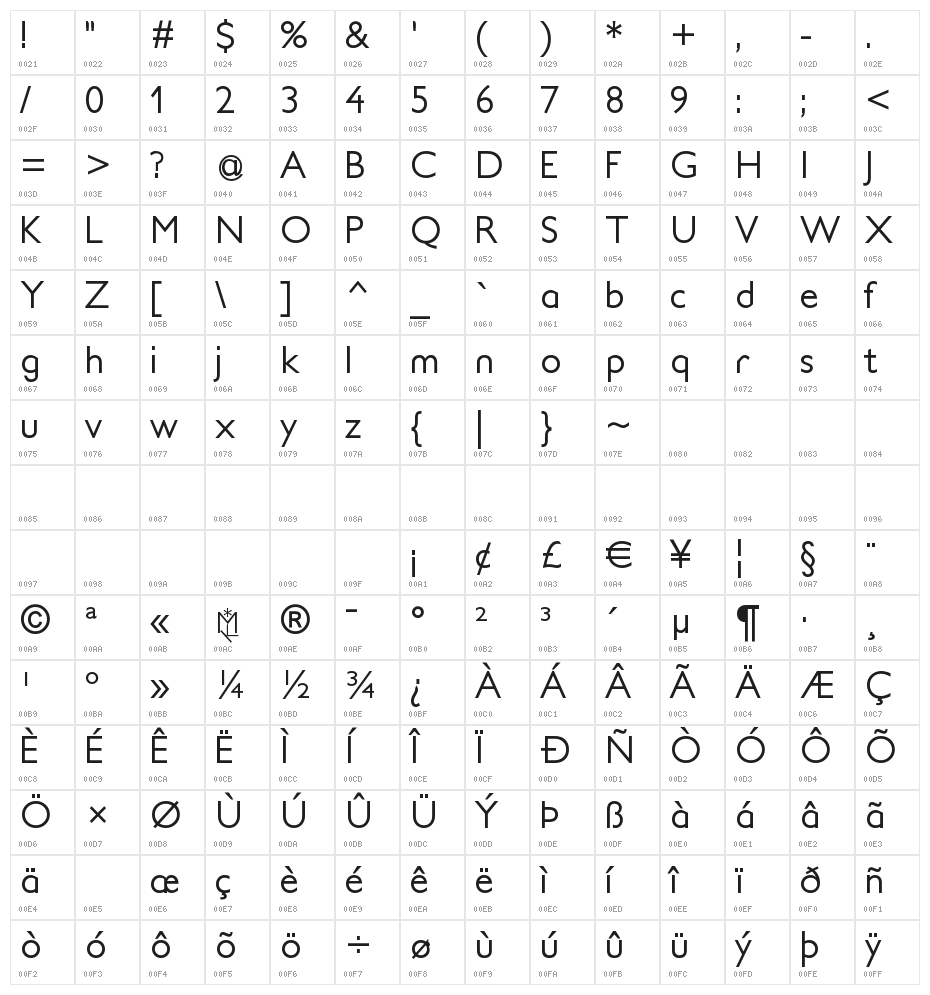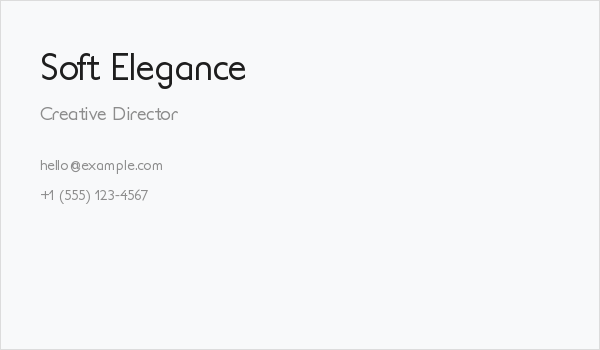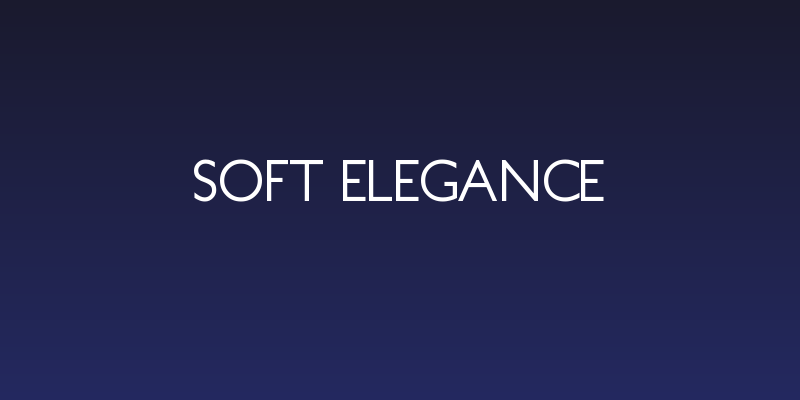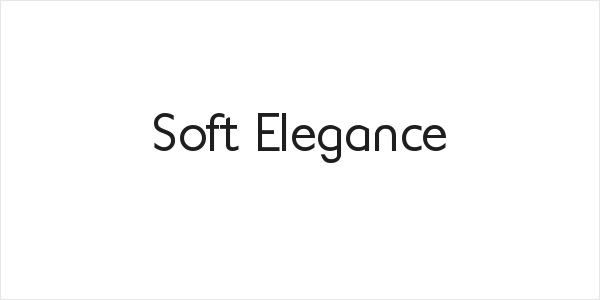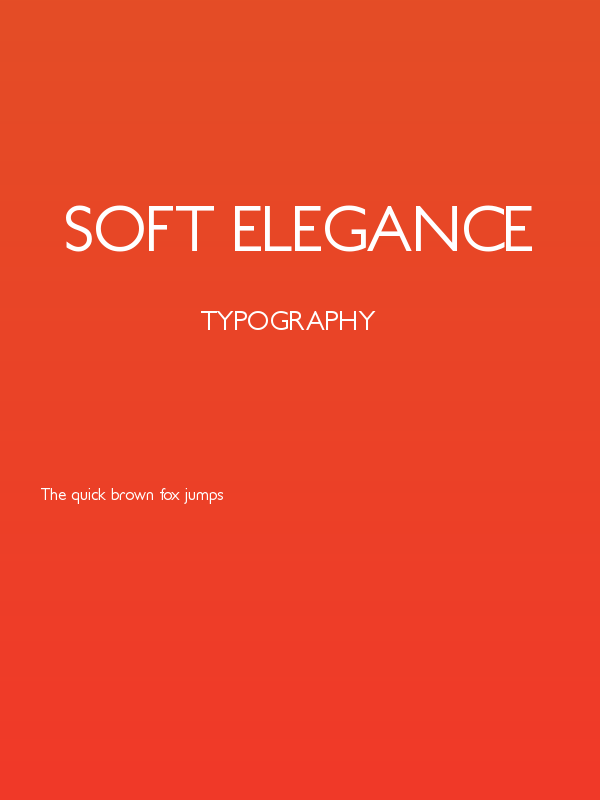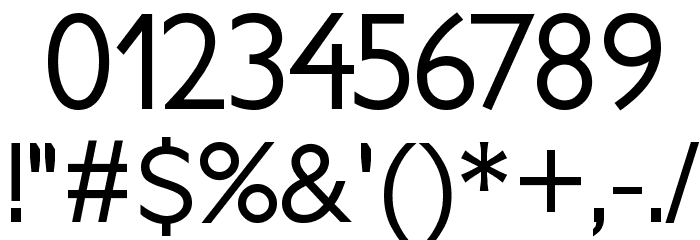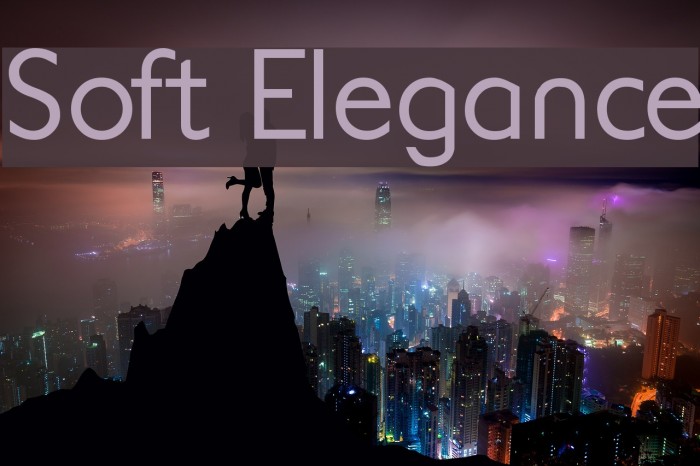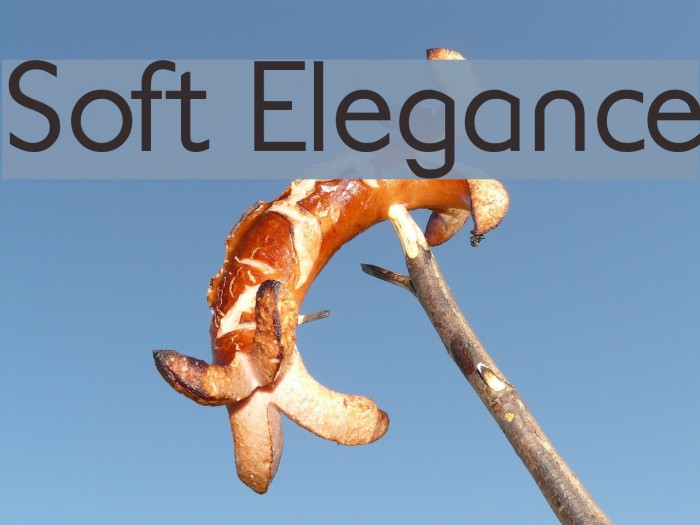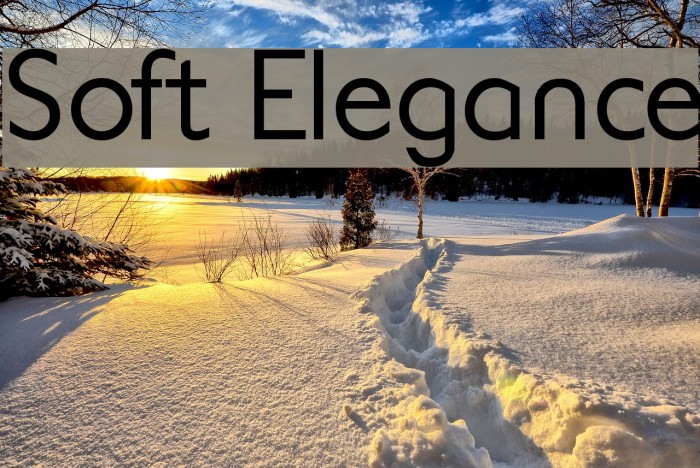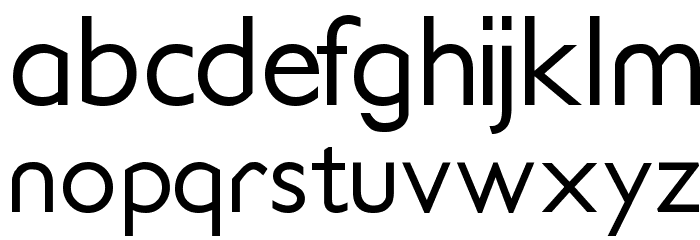
Soft Elegance Font
Soft Elegance Description
This font features a clean and modern sans-serif design with smooth curves and a balanced structure. The characters are evenly spaced, providing a harmonious and readable appearance. The uppercase letters are bold and confident, while the lowercase letters maintain a friendly and approachable style. The numerals are clear and distinct, making them suitable for both digital and print applications. Special characters are well-integrated, maintaining the font's overall aesthetic. The font's simplicity and elegance make it versatile for various design projects.